Best Kinds of Racing Font
For a designer, finding a font that suits the design project is a big deal. It may seem simple, but once you find the right font, it will turn your design into something incredible. In case you have a project to create a design with a bold, masculine theme, a racing font can be the best choice.
Coming with a bold and sharp all-over look, racing-style fonts can portray a fiery contemporary feel, an ideal way to attract the audience’s attention. The characters of a racing font are also generally strong and assertive, designed to show a blazing spirit of adventure.
If you’re searching for racing fonts to support your design projects, browse through our recommendations of the 10 best free racing fonts below. You might find one that suits your project. For that, keep reading!
10 Best Free Racing Fonts
When it comes to racing-style fonts, there are tons of options out there. Below, we’ve summarized the 10 best free racing fonts that can bring your designs to the next level.
1. Gentleman
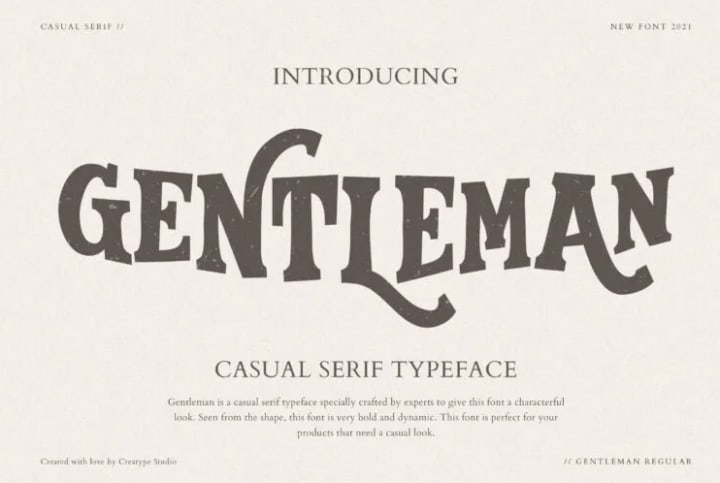
Gentleman is a font that was created specifically for displays that use boldness inside. There are unique curves in this font, making it perfect for matching your design projects with a thrilling adventure.
In addition, the bold style of this racing font can also show the masculinity of your design. There’s nothing more masculine than this Gentleman font.
2. Whisholder
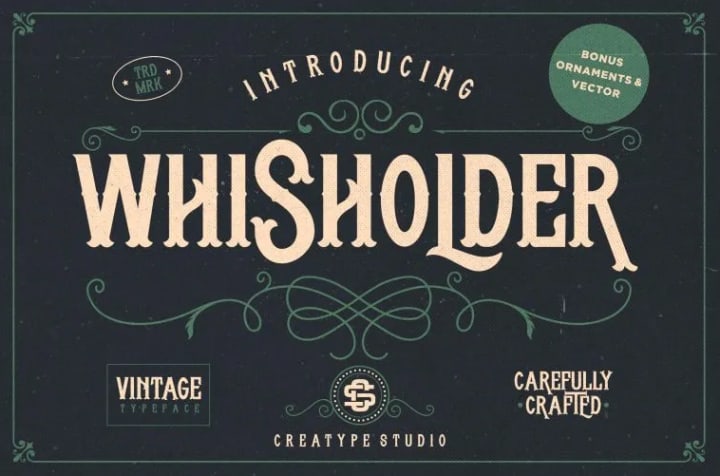
Whisholder is a retro font with beautiful decorative ornaments which is inspired by vintage typefaces and artwork. With a Victorian touch that looks sturdy and bold, it is ready to be used to create vintage letters in a split second.
You can choose this font to create a poster design with the theme of the beauty of a retro racing car or a 90s-style product poster.
3. The Modest
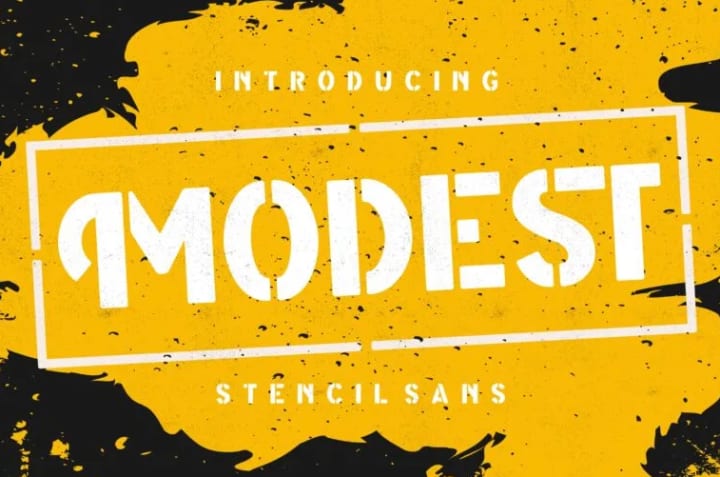
The Modest font is a typeface that comes with a classic stencil cut style that has been designed to bring a minimalist and attractive appearance.
Not only that, but this racing font also presents a bold style that is designed to show courage. It is the perfect font to show the excitement of a rock music event or an offroad car adventure occasion.
4. The Rocky
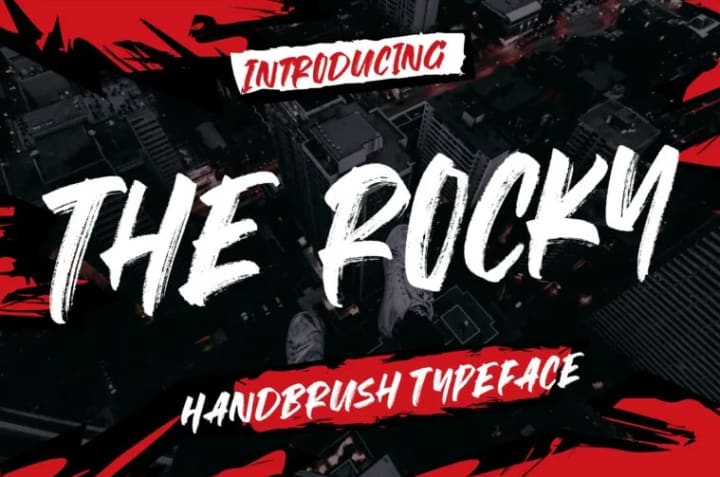
The Rocky is a racing font that comes with a hand brush style and comes with some bold strokes with a natural texture.
As the name implies, this font is made to rock your designs to the next level. It’s a hand-brush font ideal for rock concert posters, race event posters, as well as brochures of challenging spicy food products.
5. Grassroot
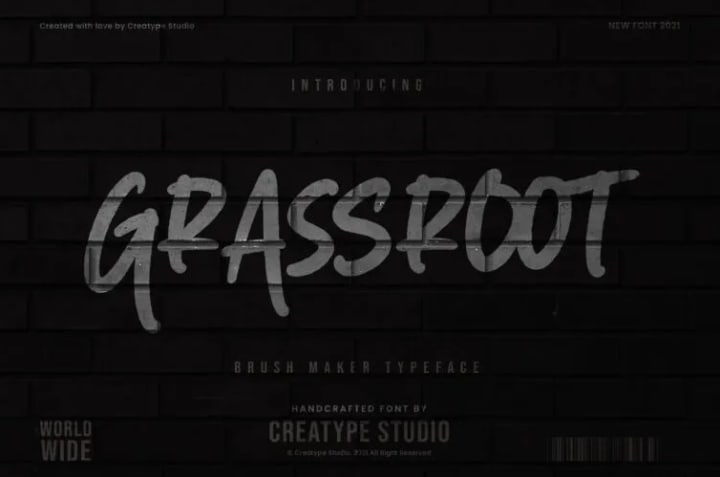
Grassroot is a hand-brush font created by skillful hands to deliver an exceptional visual impact. Thanks to its bold strokes, this font appears totally trendy and sophisticated.
As a result, you will probably love applying this font to go with the minimalist modern design that you are working on.
6. Gasthyon
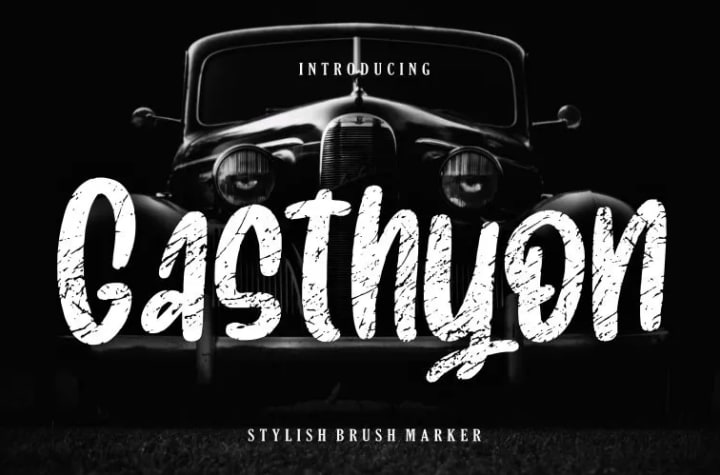
Next is Gasthyon, a racing font that comes with a brush-maker style. It looks aesthetically pleasing with a bold, scratchy style that makes your latest project admirable.
With its appearance, this font is best suited for music concert posters, travel, and product advertisements with a charming style.
7. Hardbeat
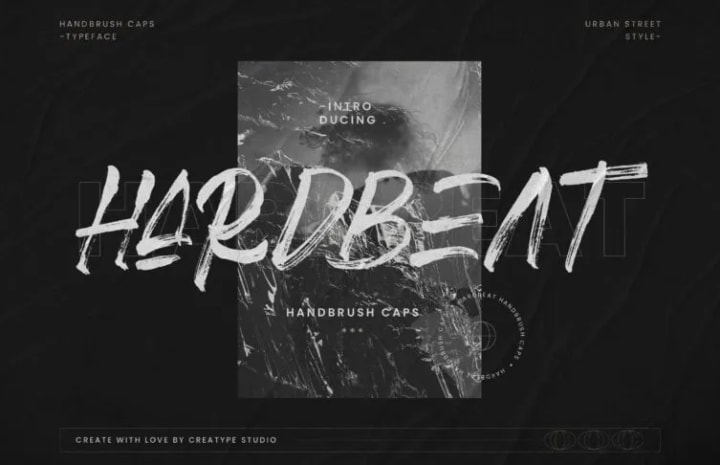
Hardbeat is a font that conveys a message full of energy. Shown with a highly distinctive hand brush, the texture of this font stands out as detailed and bold.
Due to its energetic and bold style, it can be used for projects with aesthetically pleasing designs yet still able to show an overflowing spirit.
8. Kayooh
Kayooh is a bold and solid display font that has a traditional Japanese feeling and is suitable for any Japanese occasion. That’s right! This font comes with a Japanese style that can show the characteristics of Japanese culture and script.
Anything Japanese, whether it is event posters, clothing designs, or tourism brochures, this Kayooh font is suitable for use.
9. Skulrock
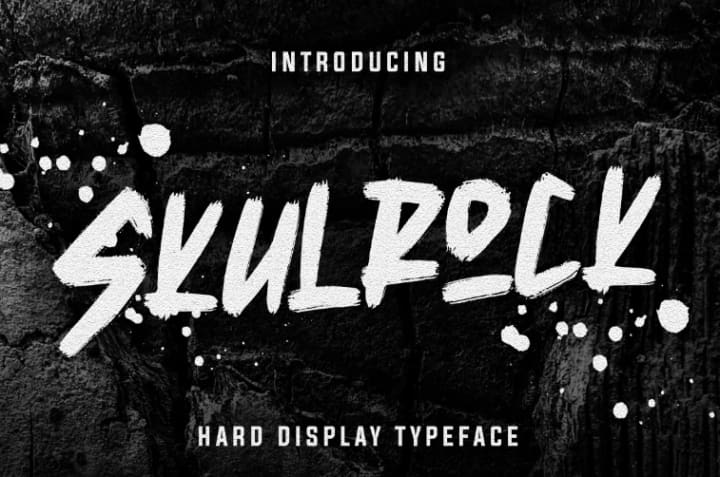
Oh! Who doesn’t love the bold, hard, and bold look of this Skulrock font? It is a brush-style font that is perfect for rock concert events.
With this Skulrock font, you can show the fun, sweaty spirit and headbang of a rock concert.
10. Grunge!
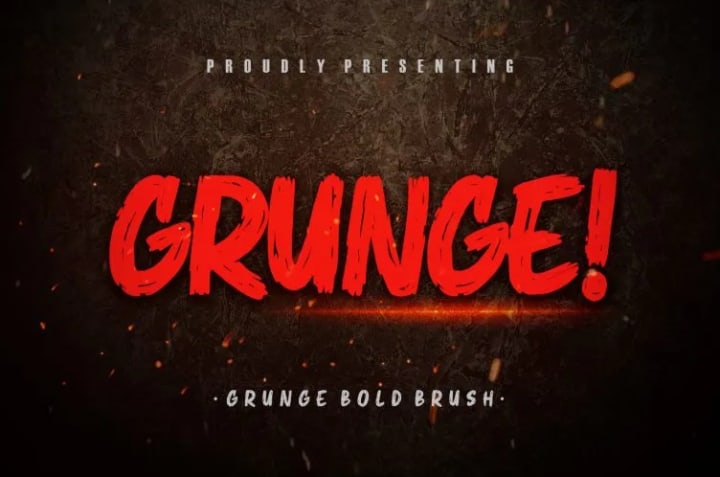
Last but not least is Grunge!, a racing font that is ideal for a wide variety of metal and rock concert events.
There’s a reason why this type of font is so ideal for music concerts with this screaming and passion. It is none other than the way this font comes in bold, showing the fearlessness of the audience.
Ready to Race and Rock Your Design with a Racing Font?
Despite the name “racing”, racing-style fonts are still versatile enough to be used in a variety of designs. Whatever your design project is about boldness and thrilling adventure, racing fonts can fit the bill.